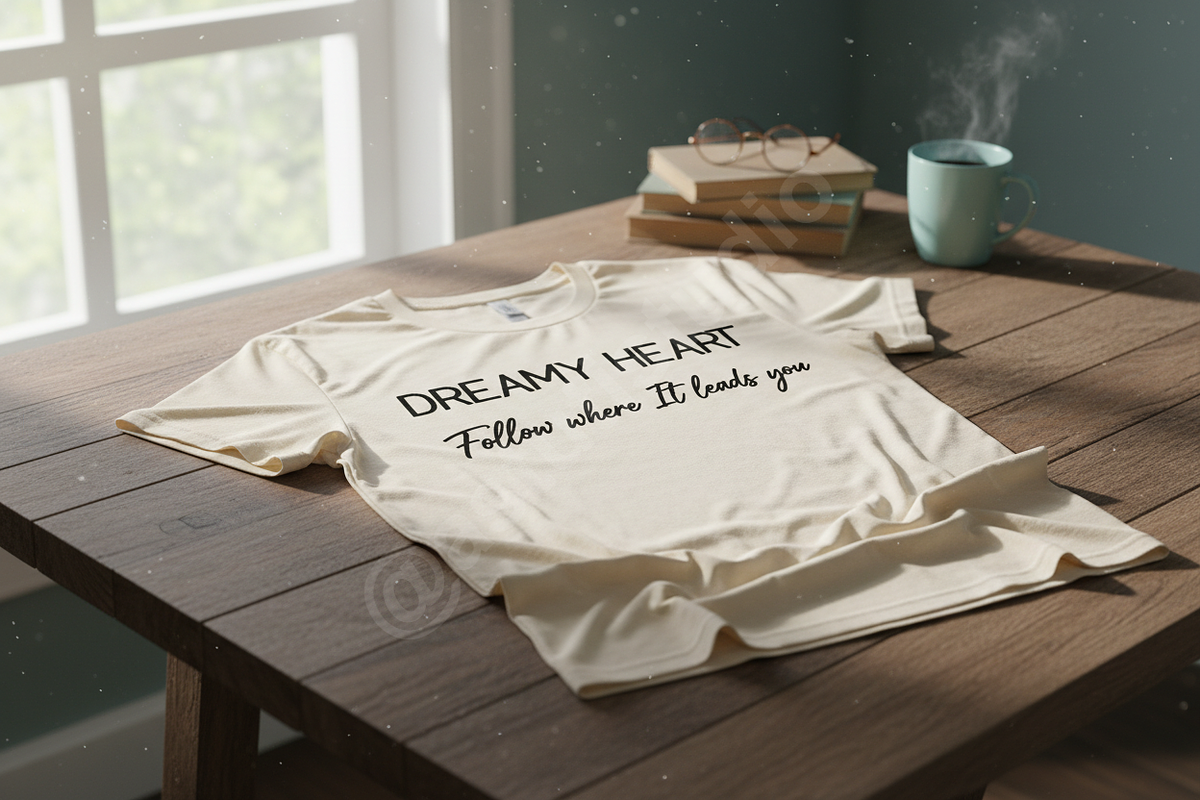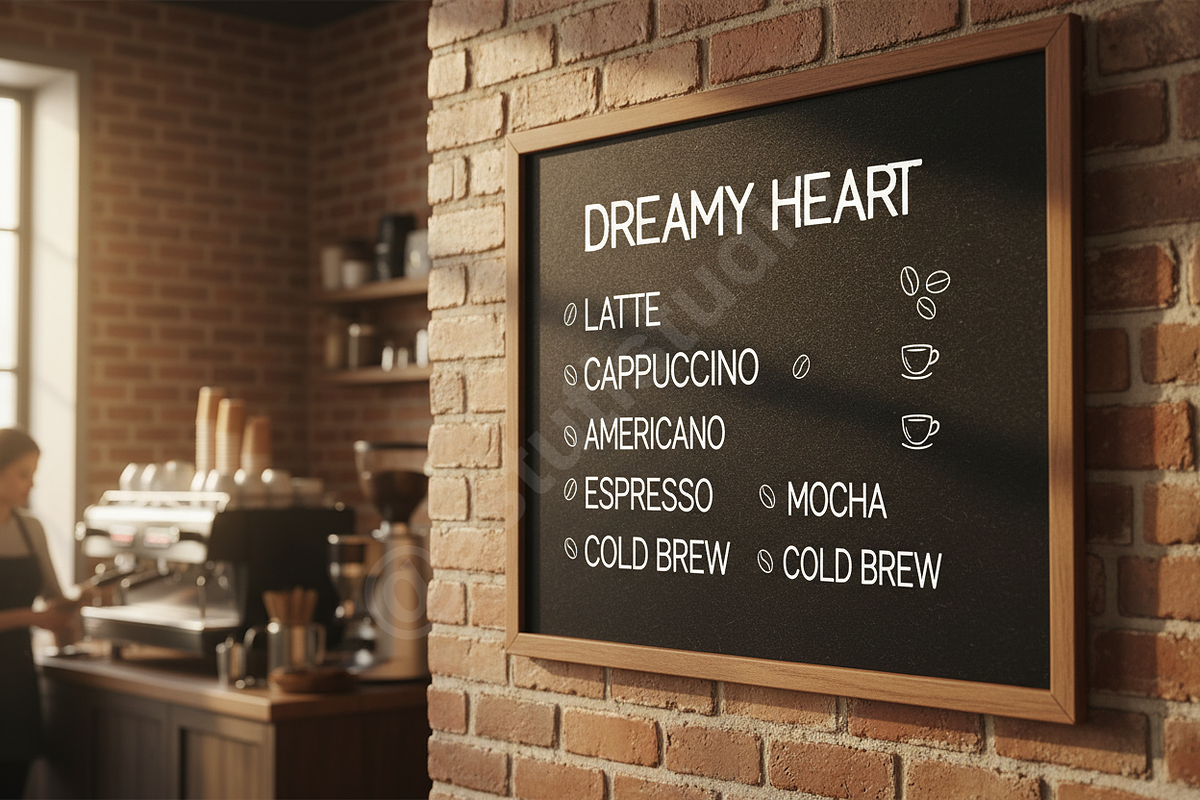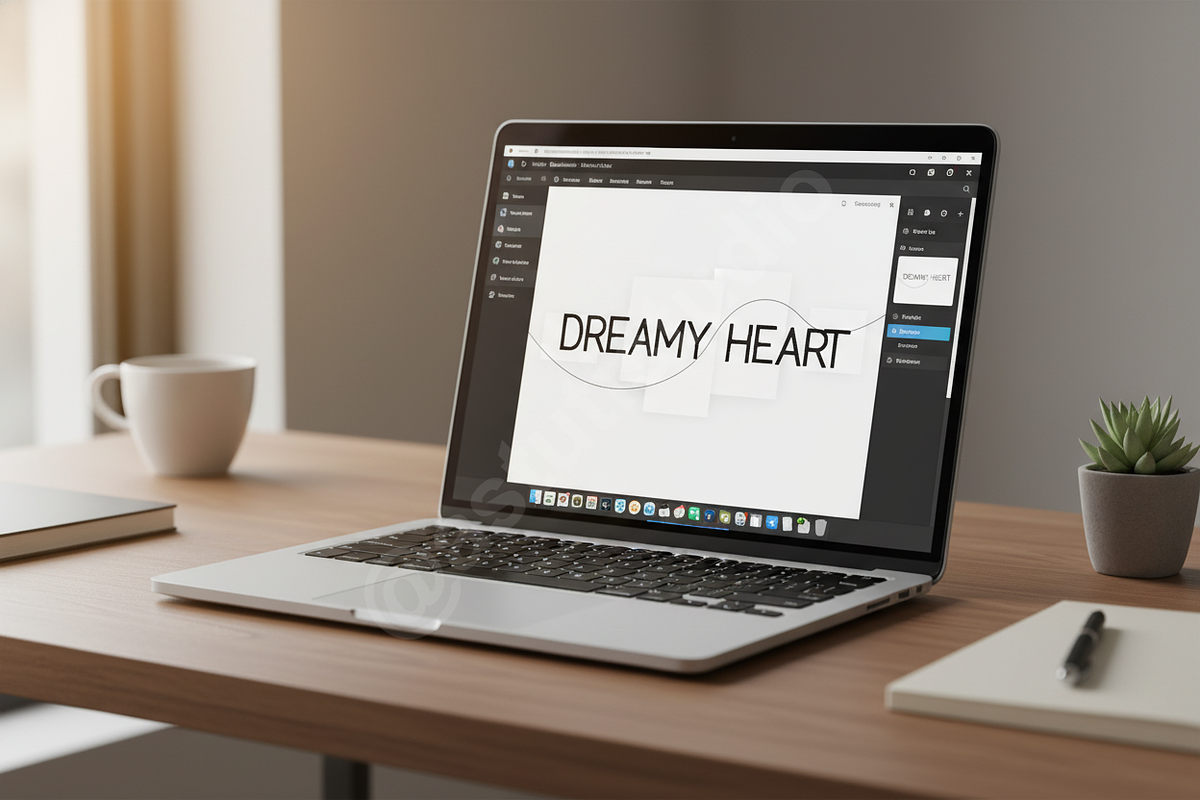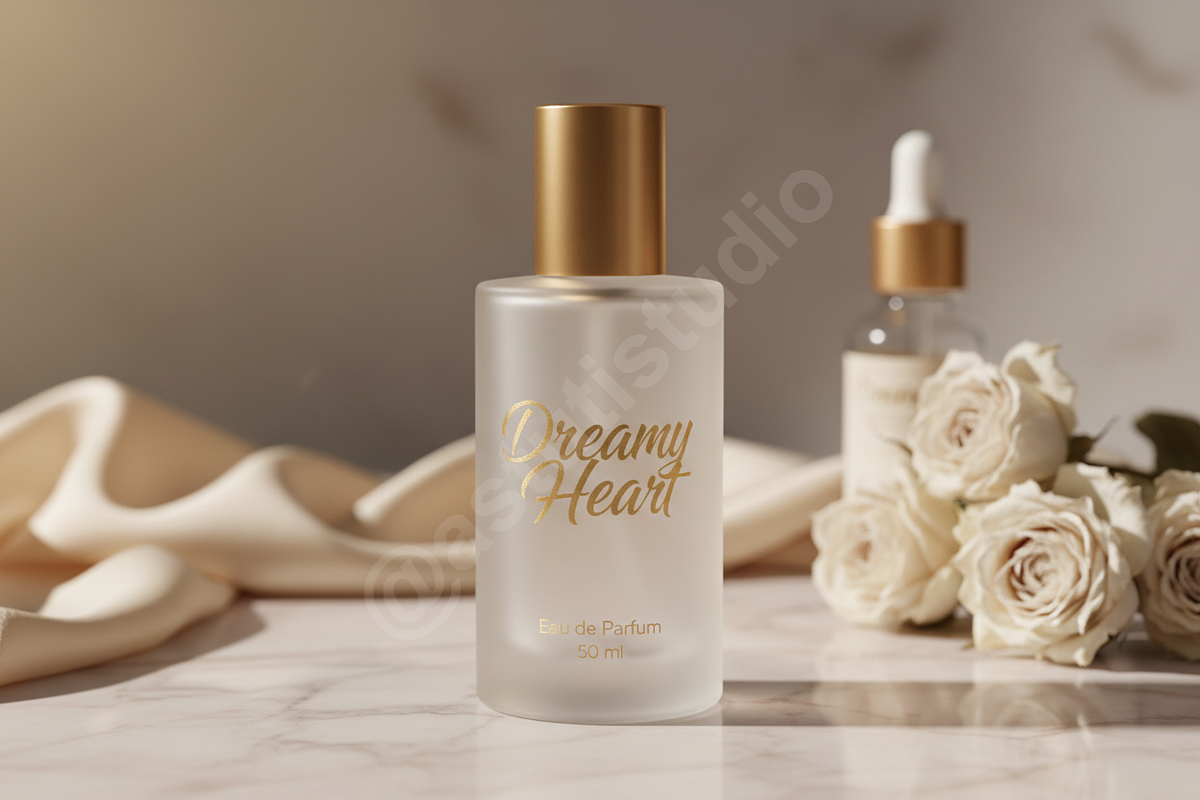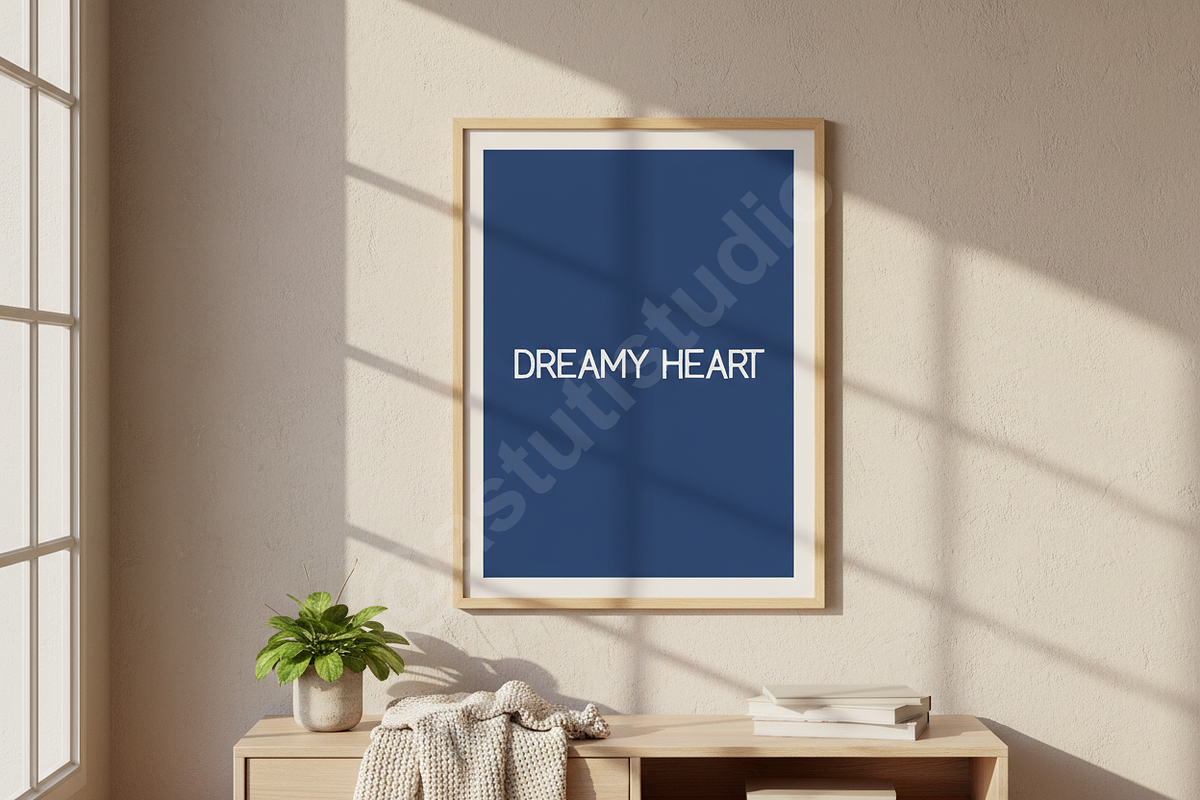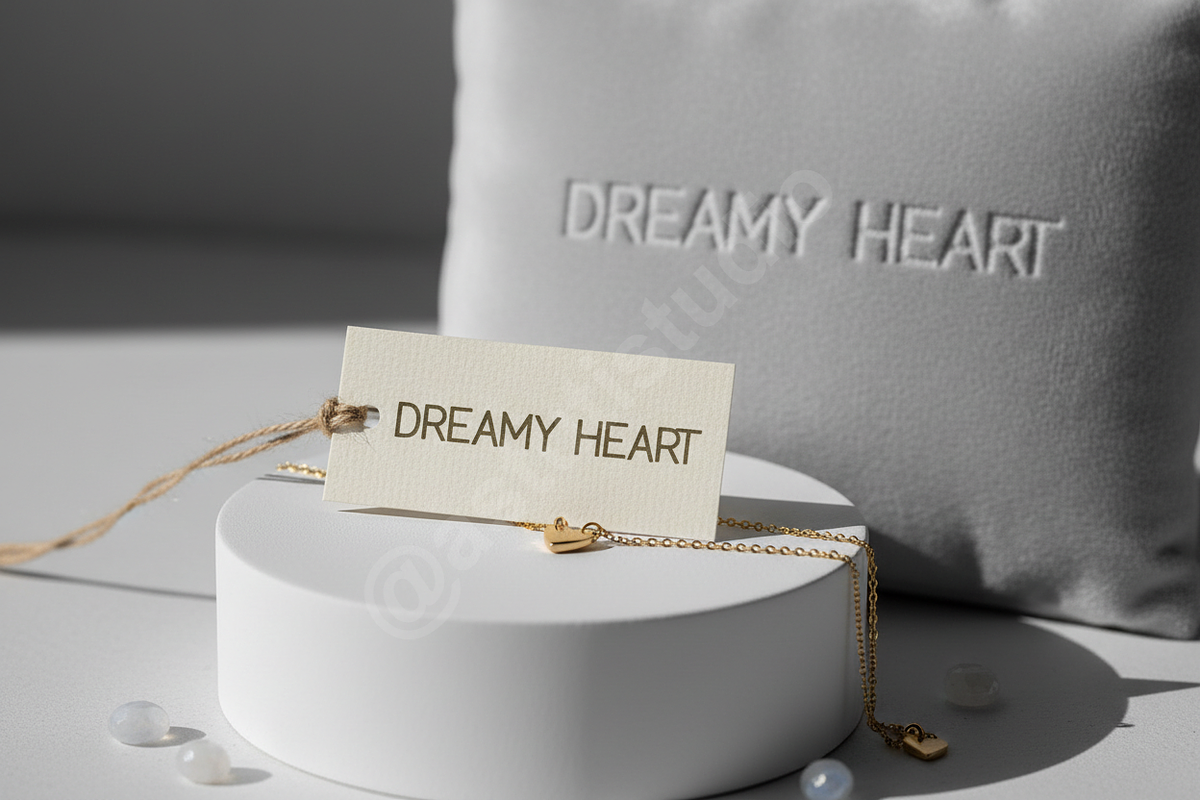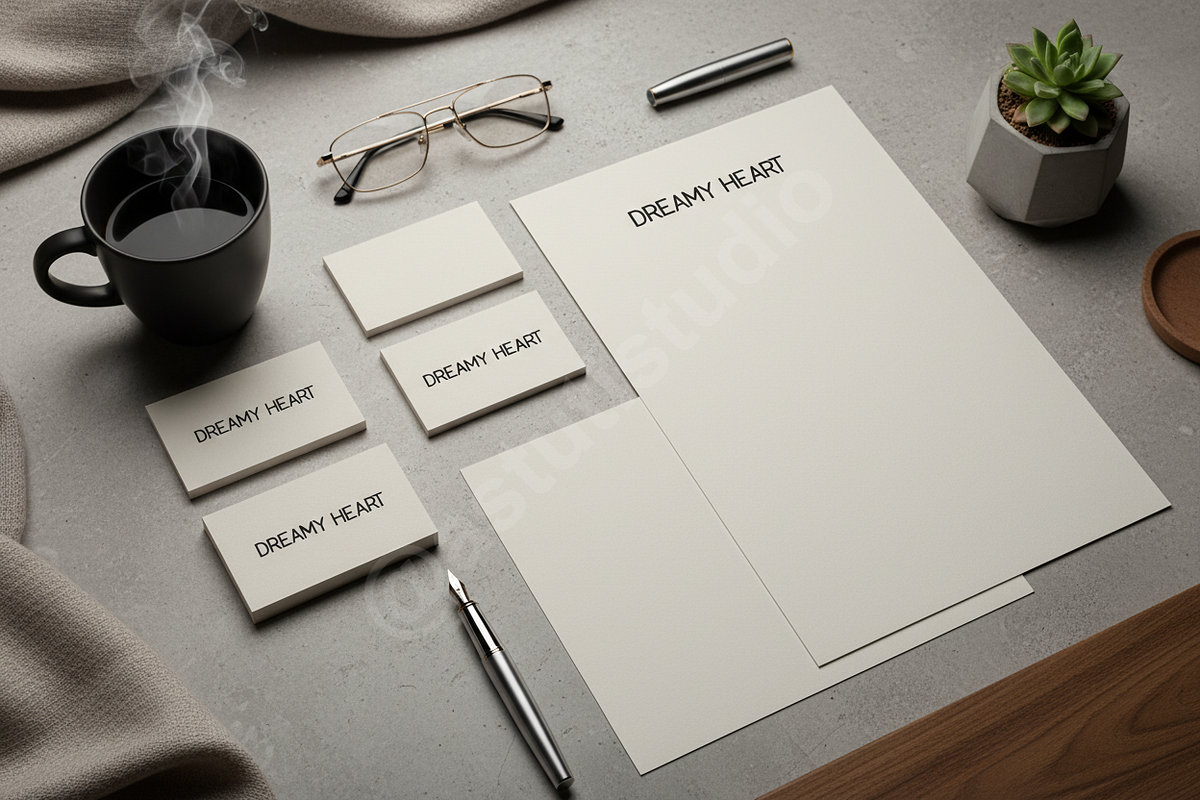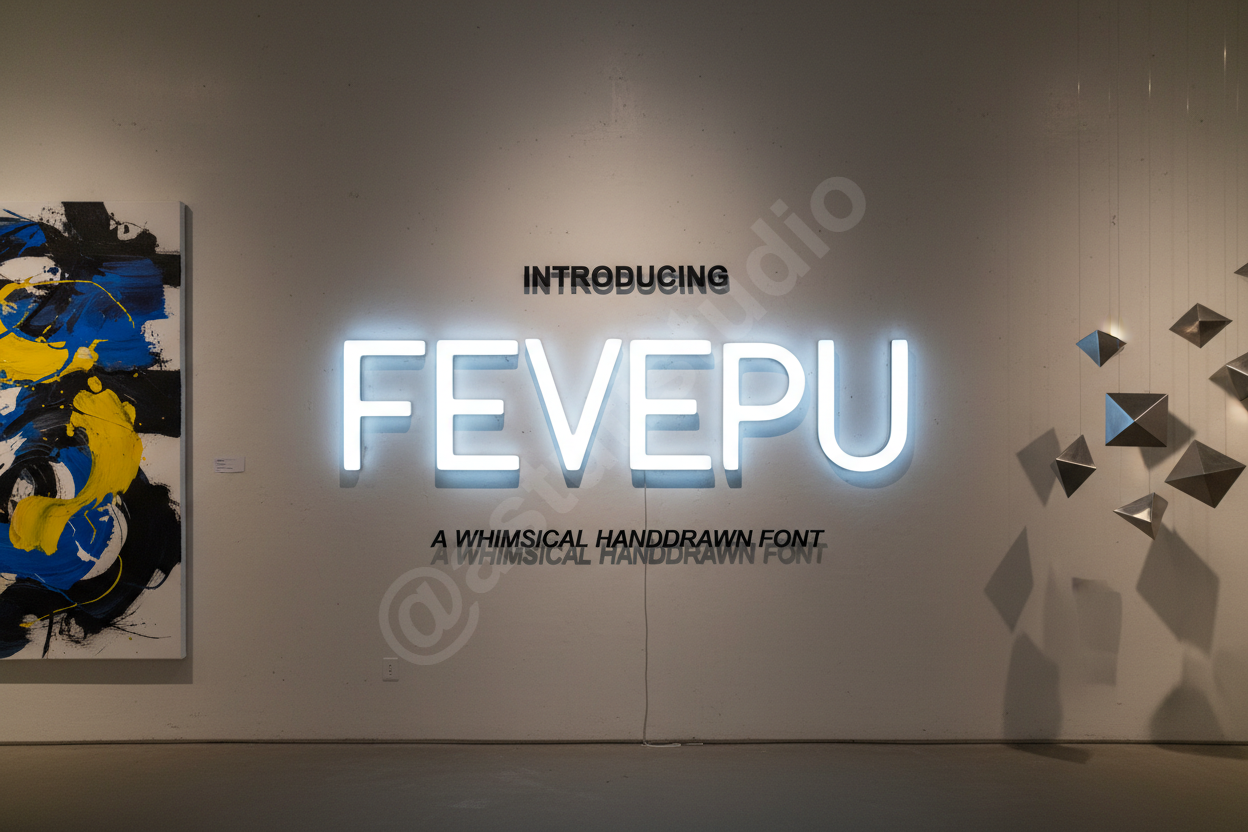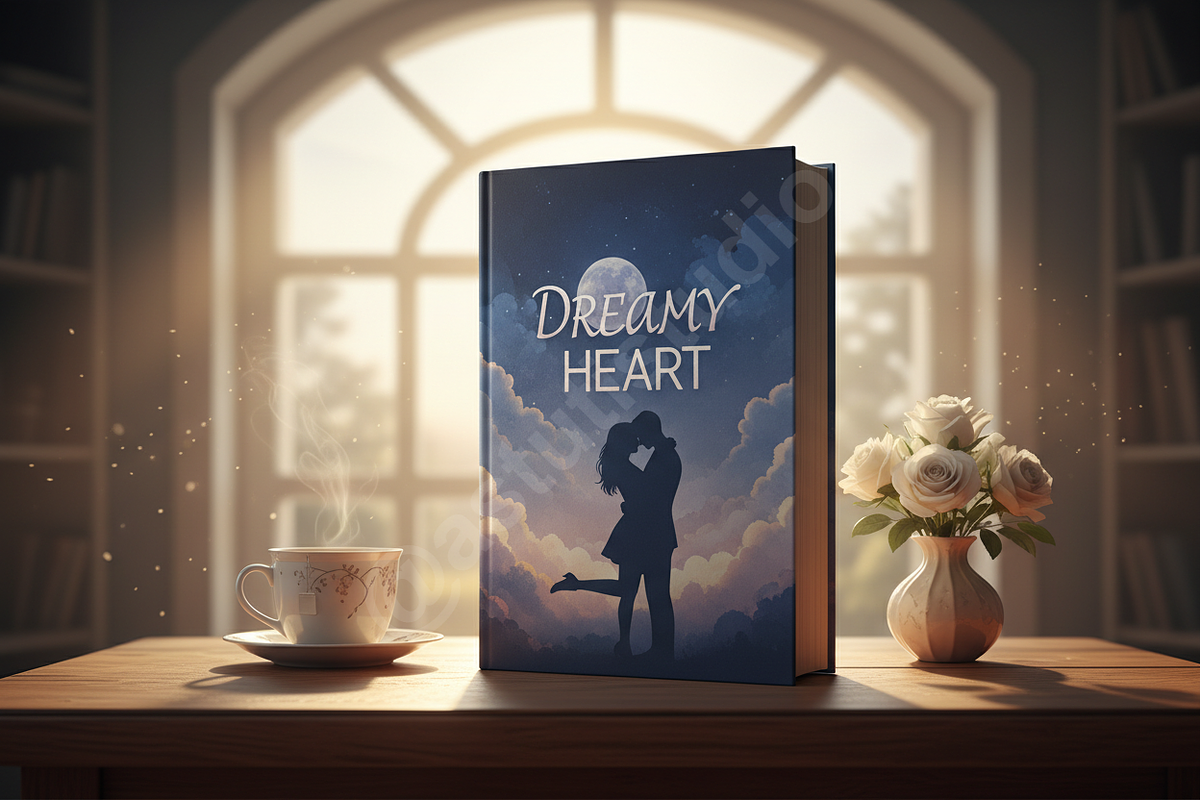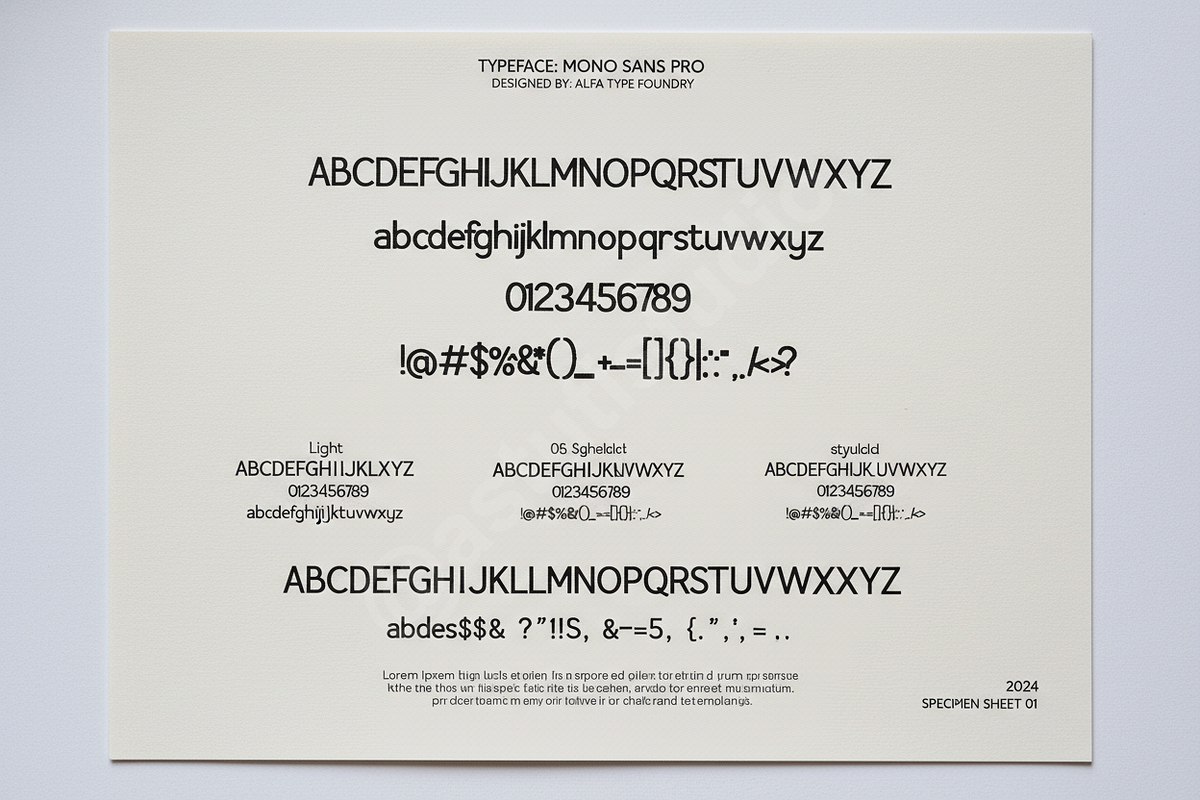
Fevepu - Elegant Serif Font for Luxu
Discover Fevepu, an exquisite serif font meticulously crafted to embody sophistication and timeless elegance. Designed for the discerning creative, Fevepu offers a luxurious aesthetic perfect for high-end branding, captivating editorial layouts, and polished social media presence. Its refined curves and balanced letterforms speak volumes, ensuring your projects convey a sense of premium quality and exclusive charm.
Fevepu is engineered with precision, offering a comprehensive set of features to elevate your designs:
- Elegant Uppercase & Lowercase Characters
- Numerals & Extensive Punctuation
- Beautiful Ligatures & Stylistic Alternates
- Multilingual Support for broad accessibility
- PUA Encoded for easy access to all glyphs
- Clean and Readable typography, ideal for both display and body text